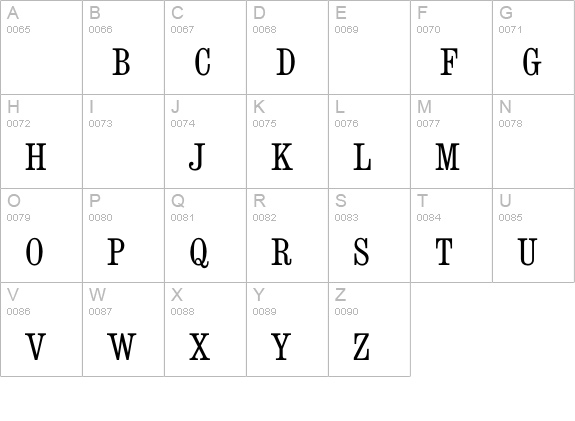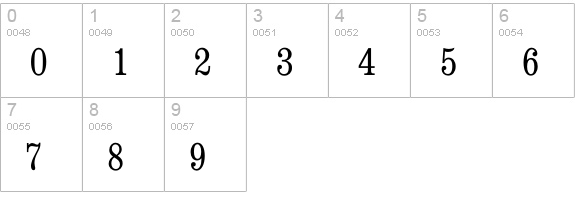
ConsortLightCondensed Font Details
ConsortLightCondensed font is a sleek and modern typeface that exudes elegance and sophistication. Its condensed design makes it perfect for use in a variety of design projects where space is limited, yet a touch of refinement is desired. The slender letterforms and subtle curves of ConsortLightCondensed font create a harmonious balance that is both visually appealing and easy to read. This versatile font is ideal for headlines, logos, branding, and other design applications where a clean and contemporary look is desired. Whether you're designing a sleek website, crafting a stylish brochure, or creating eye-catching social media graphics, ConsortLightCondensed font will elevate your design with its timeless appeal. Best of all, ConsortLightCondensed font is available for free download at FontsMarket.com. Simply visit the website to access this premium font at no cost, and take your design projects to the next level with the distinctive style of ConsortLightCondensed.